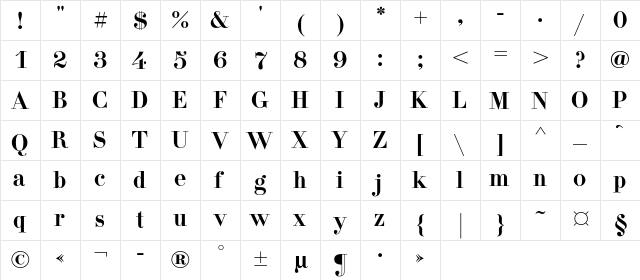
DidonaC Regular Font Preview
DidonaC Regular
DidonaC Regular Font Details
Design Context for DidonaC Typeface
DidonaC takes a measured approach to typography — its balanced proportions and neutral character make it a reliable workhorse for both digital and print work.